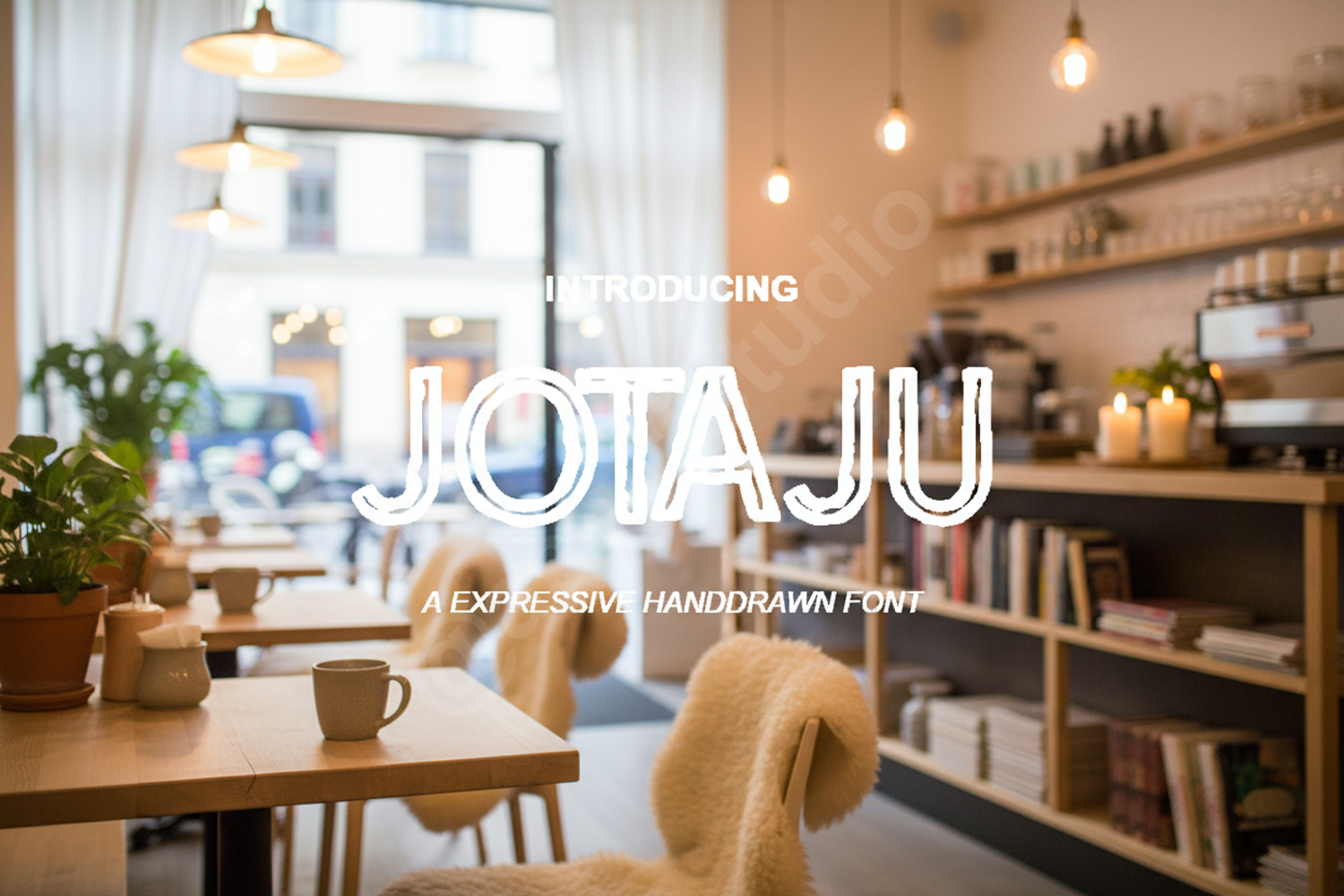
Jotaju - Modern Minimalist Display Font
Jotaju
Elevate your design projects with Jotaju, a premium display font designed for modern aesthetics and timeless appeal. Crafted with precision, Jotaju balances clean lines with unique character shapes, making it a versatile addition to any designer's toolkit. Whether you are working on high-end branding or creative editorial layouts, this font provides the professional edge your work deserves.
- Premium Branding and Identity
- Modern Logo Design
- Editorial and Magazine Layouts
- Wedding Invitations and Stationery
- Social Media Graphics and Headers
- Product Packaging and Labels